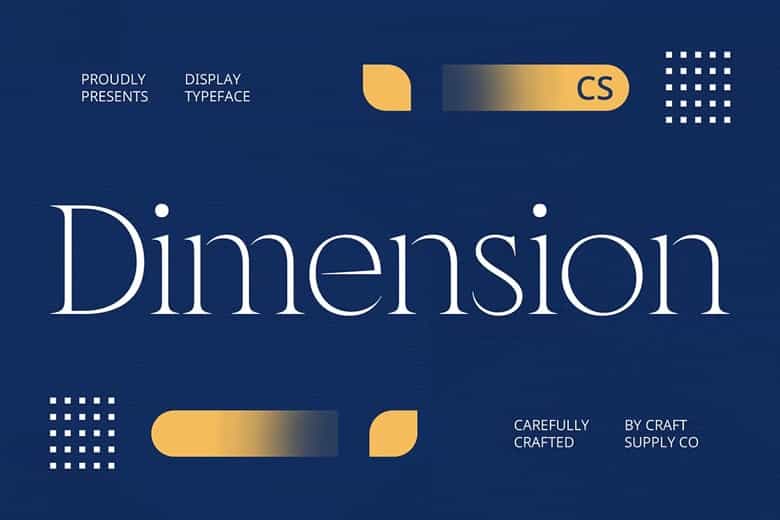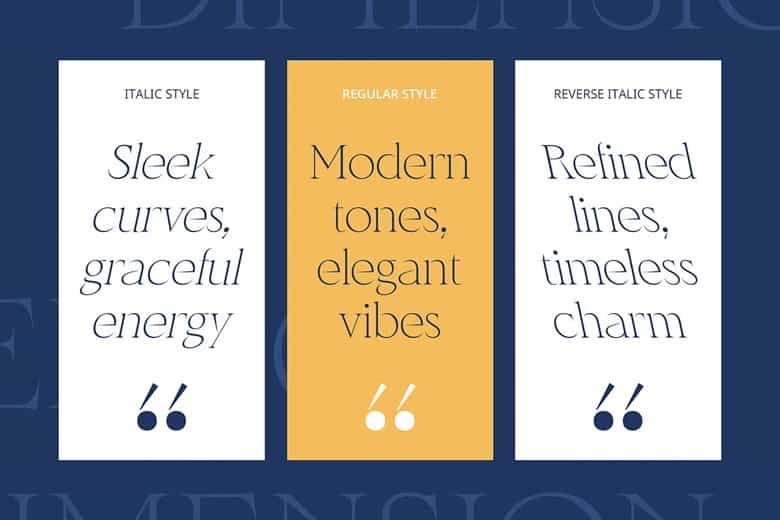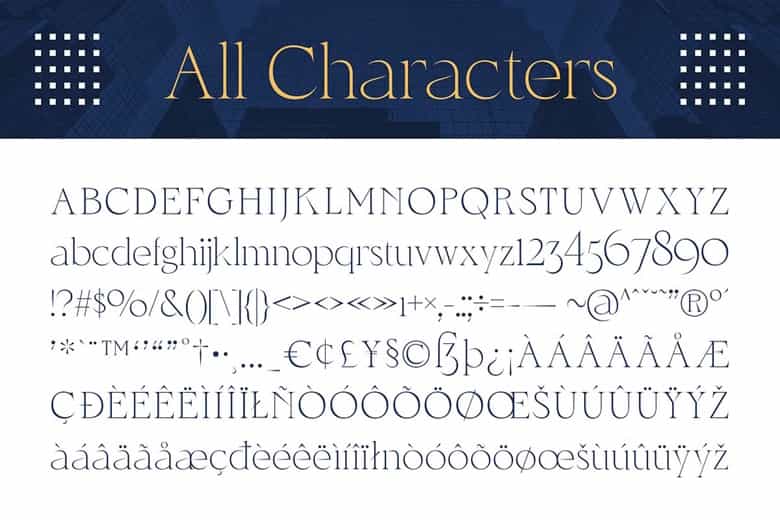
CS Dimension is a new stylish Serif font which comes with the slender and sleek looking fonts. For this reason, it is perfect for projects that require a professional touch as it provides timeless beauty in every single letterform. The small form factor of CS Dimension is the first way that it invokes luxury in the appearance of its design.